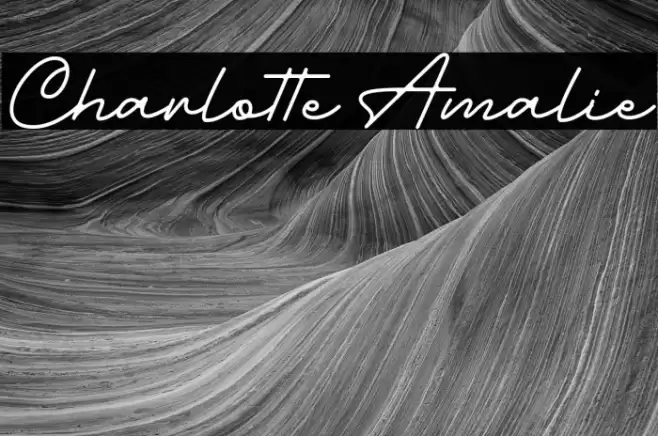
Charlotte Amalie Font
Charlotte Amalie Description
This font features a stylish and elegant script design, characterized by its fluid and connected letterforms. The uppercase letters exhibit a graceful and flowing style, while the lowercase letters maintain a consistent and smooth appearance. The numbers are clear and easy to read, complementing the overall aesthetic. Special characters are designed with the same attention to detail, adding versatility to the font. The strokes are moderately thick, providing a balanced contrast that enhances readability without sacrificing the decorative appeal.
A stylish and elegant script font with fluid, connected letterforms from Regular fonts.
- Proposed Projects: Ideal for wedding invitations, elegant branding, personal stationery, and decorative headlines.
- Overall Style: Elegant, Decorative
- Use Case: Logos, Invitations, Decorative Headlines